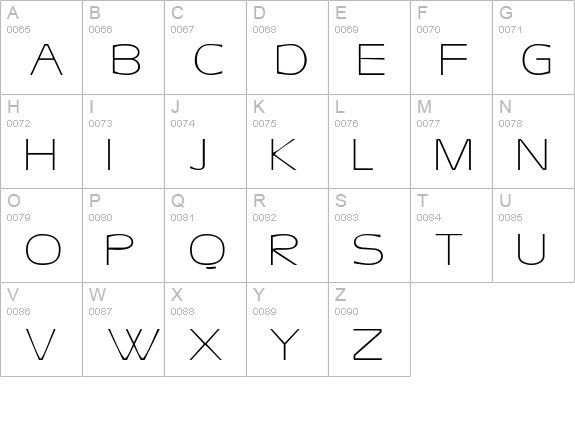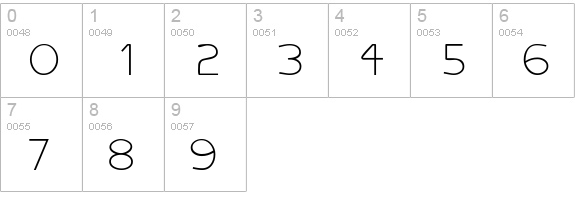
AireoDisplay Font Details
Introducing AireoDisplay font - a modern and sleek typeface that effortlessly combines elegance with a touch of sophistication. With its clean lines and unique design elements, AireoDisplay is perfect for adding a contemporary flair to any project. This versatile font is ideal for a wide range of design applications, from branding and advertising to editorial and web design. Its bold and eye-catching appearance makes it stand out in both print and digital formats, ensuring your message is always delivered with impact. And the best part? AireoDisplay is completely free to download at FontsMarket.com. So whether you're a seasoned designer looking for a fresh new font to add to your collection, or a beginner searching for the perfect typeface to elevate your project, AireoDisplay has got you covered. Download it today and take your designs to the next level!